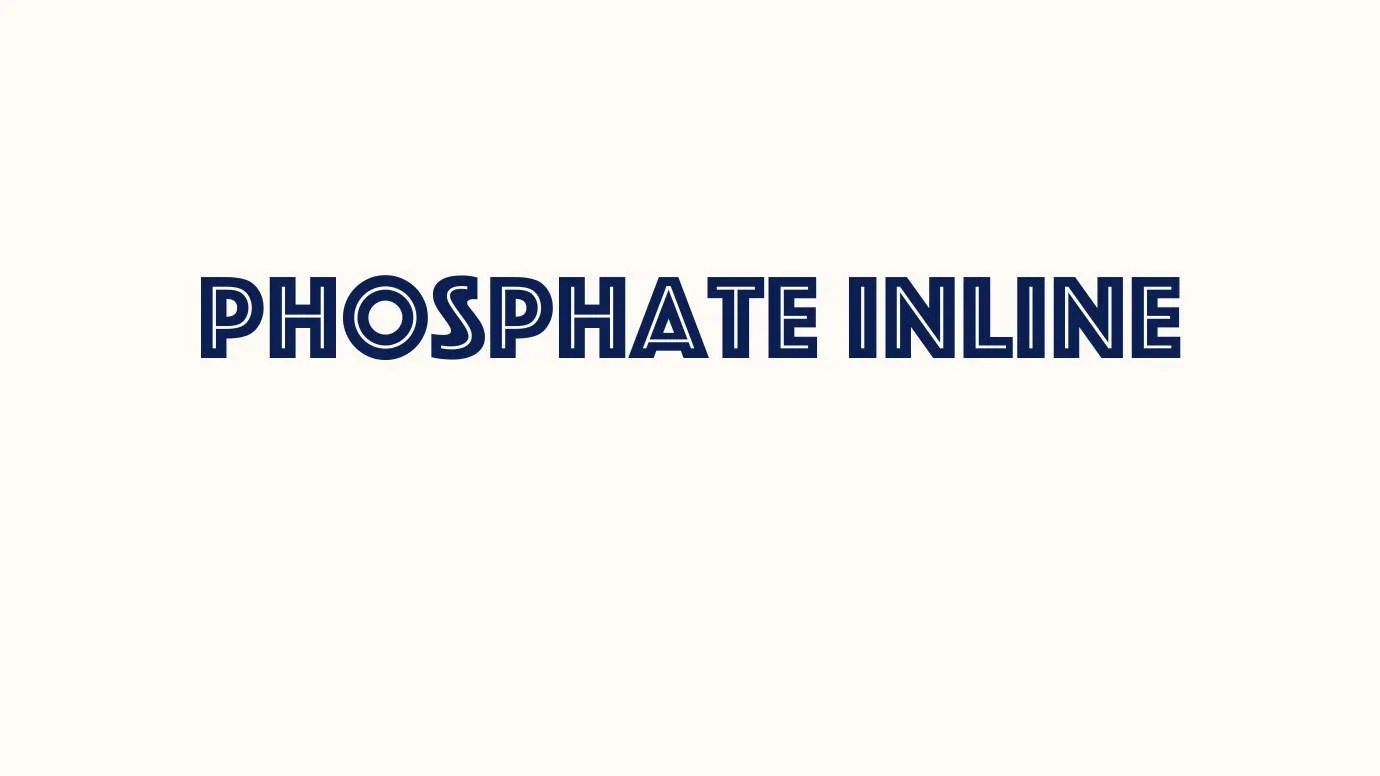
Phosphate Inline Font Family is a display font. Its creator is Steve Jackaman. It serves perfectly for small businesses, stationery items, and covers for books. Lovers of New Calligraphy font have developed it with the use of the robust Palomino Blackwing 602 pencils.
The entire family of this typeface was brought to life with just three pencils. This font is a stunning competent font same as Brandon Grotesque font that can give attractiveness to the artwork designs, internet page designs, emblems, and so on.
Phosphate Inline Font Family